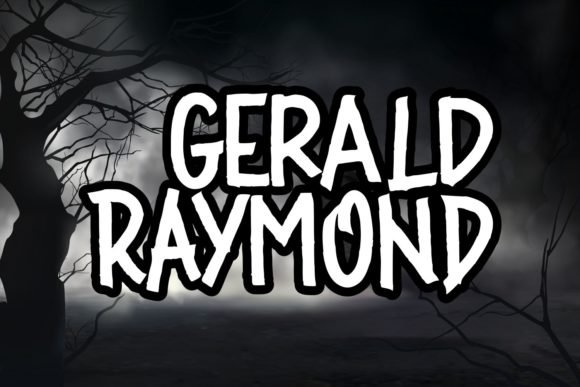
Introduction to Gerald Raymond Font
Gerald Raymond is a display font that was made to stand out with its distinctive style plus it looks great with a contrasting outline.
Gerald Raymond is a display font that was made to stand out with its distinctive style plus it looks great with a contrasting outline!
Key Features of Gerald Raymond Font